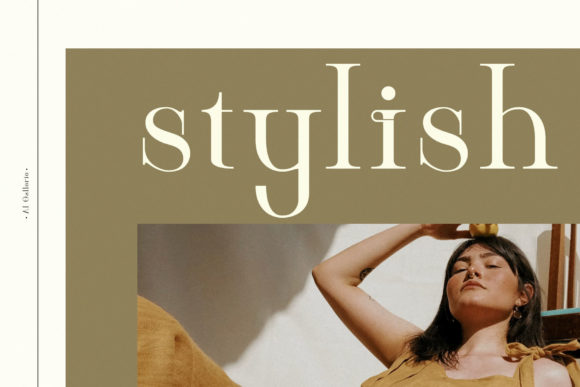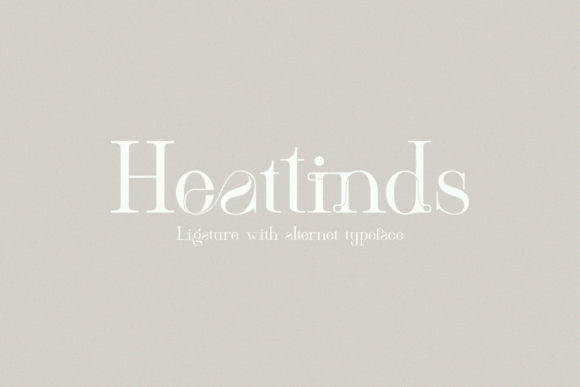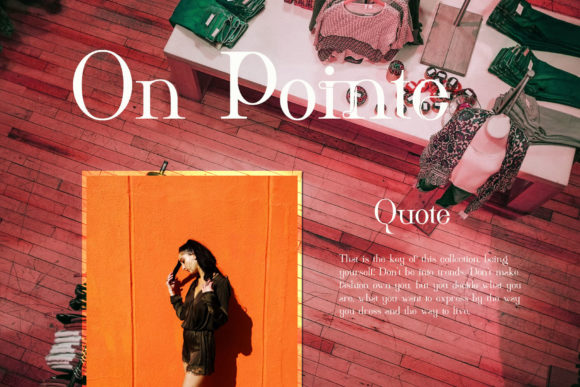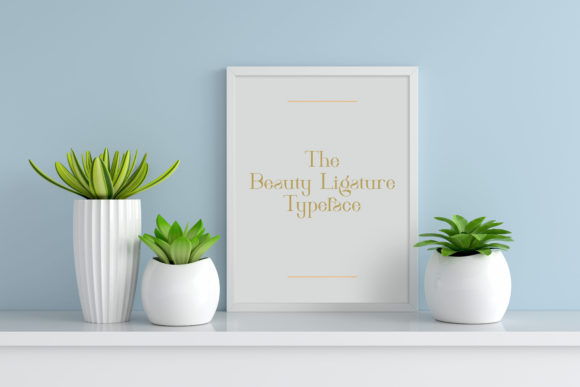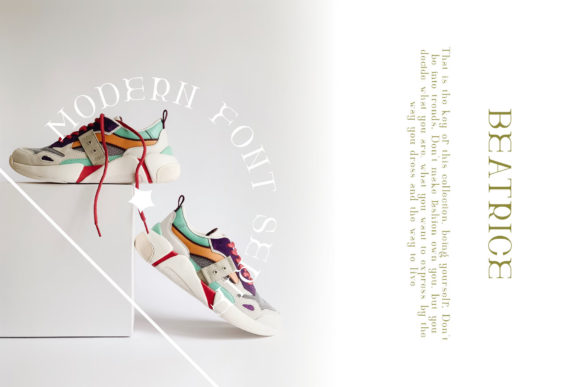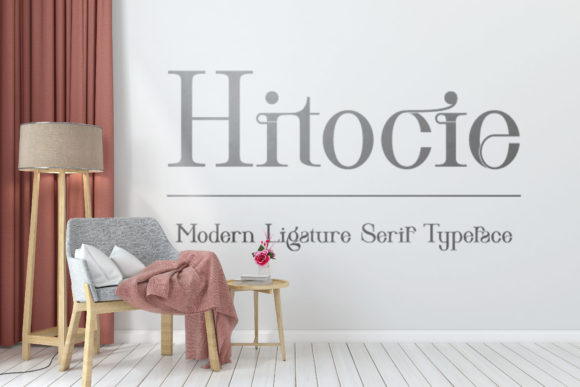
Introduction to Hitocie Font
Have you ever stared at a blank design canvas, feeling stuck and unsure where to begin? It’s a common struggle for creatives everywhere, but what if I told you that the perfect font could be the key to unlocking your next masterpiece? Enter the elegant and classy Hitocie Font, a modern and nostalgic serif typeface that’s sure to elevate your designs and take your creative project to the next level.
As a valuable design resource, the Hitocie Font is a high-quality addition to any designer’s toolkit. With its sophisticated look and feel, it’s perfect for logos, magazines, and social media – anywhere you need to make a lasting impression. And the best part? It’s a free download, ready to be used together with other fonts for a seamless and cohesive design.
- High-quality design resource suitable for various creative projects, including logos, branding, and graphics.
- Features a transparent background, allowing for easy integration into different design elements.
- Designed with a unique and creative style, perfect for adding a touch of personality to any project.
- Size: The font family includes a range of weights, from light to bold, allowing for flexibility in design composition.
Honest Review: Hitocie Font
As a designer, I’m always on the lookout for high-quality design resources that can elevate my creative projects. Recently, I had the chance to try out the Hitocie Font, and I must say it’s been a pleasant experience.
What works well: ✨ The Hitocie Font is incredibly versatile, with a wide range of styles and weights that can be easily customized to suit any design need. The transparent background option is also a huge plus, allowing me to easily integrate the font into my designs without any distractions.
What I’d like to see improved: ⚠️ While the font is generally well-designed, I did notice some minor issues with consistency across different weights and styles. This can be a bit jarring, especially when using the font in a large-scale design project.
- High-quality design with a wide range of styles and weights
- Minor consistency issues across different weights and styles
Overall, I’m quite impressed with the Hitocie Font. While it’s not perfect, its strengths far outweigh its weaknesses, making it a great addition to any designer’s toolkit.
For optimal results, experiment with different font styles and sizes to achieve a balanced design. Additionally, consider pairing the Hitocie Font with other design elements to create a visually appealing project.
The Hitocie Font is suitable for various creative projects, including logos, brochures, business cards, and social media graphics. Its unique design makes it an ideal choice for businesses looking to stand out in a crowded market.